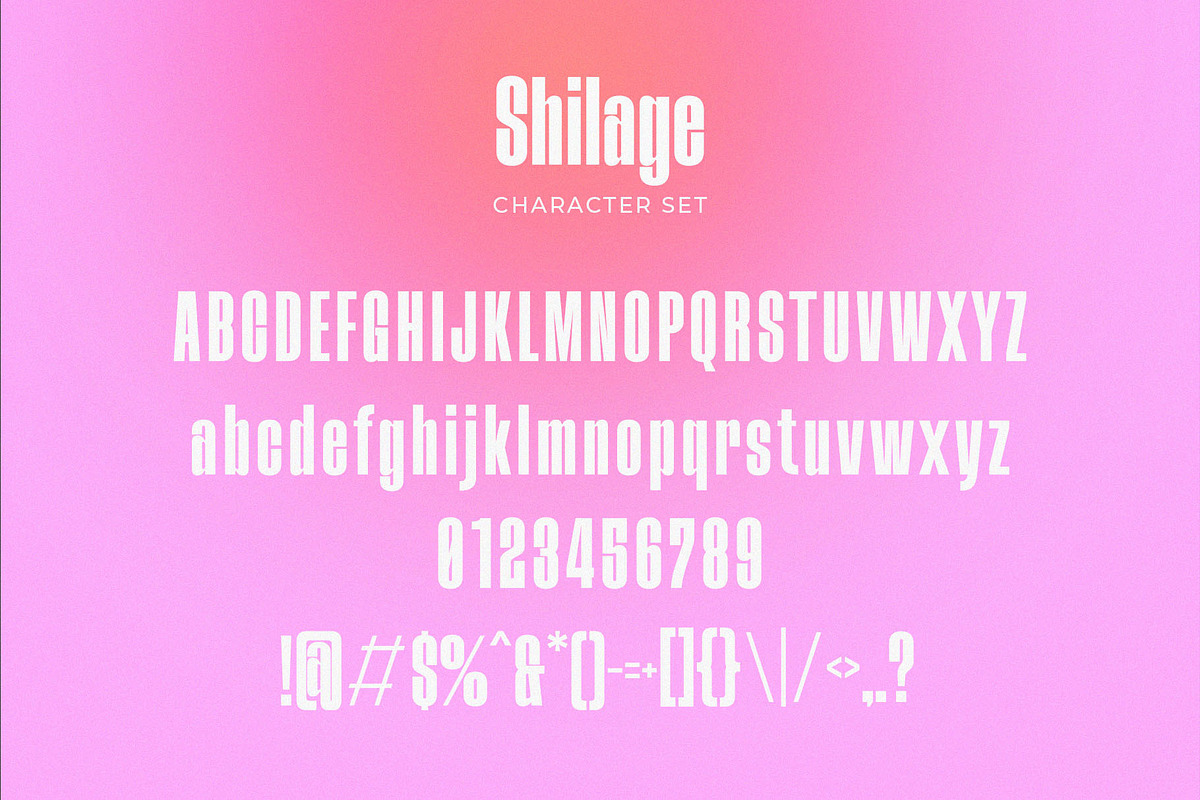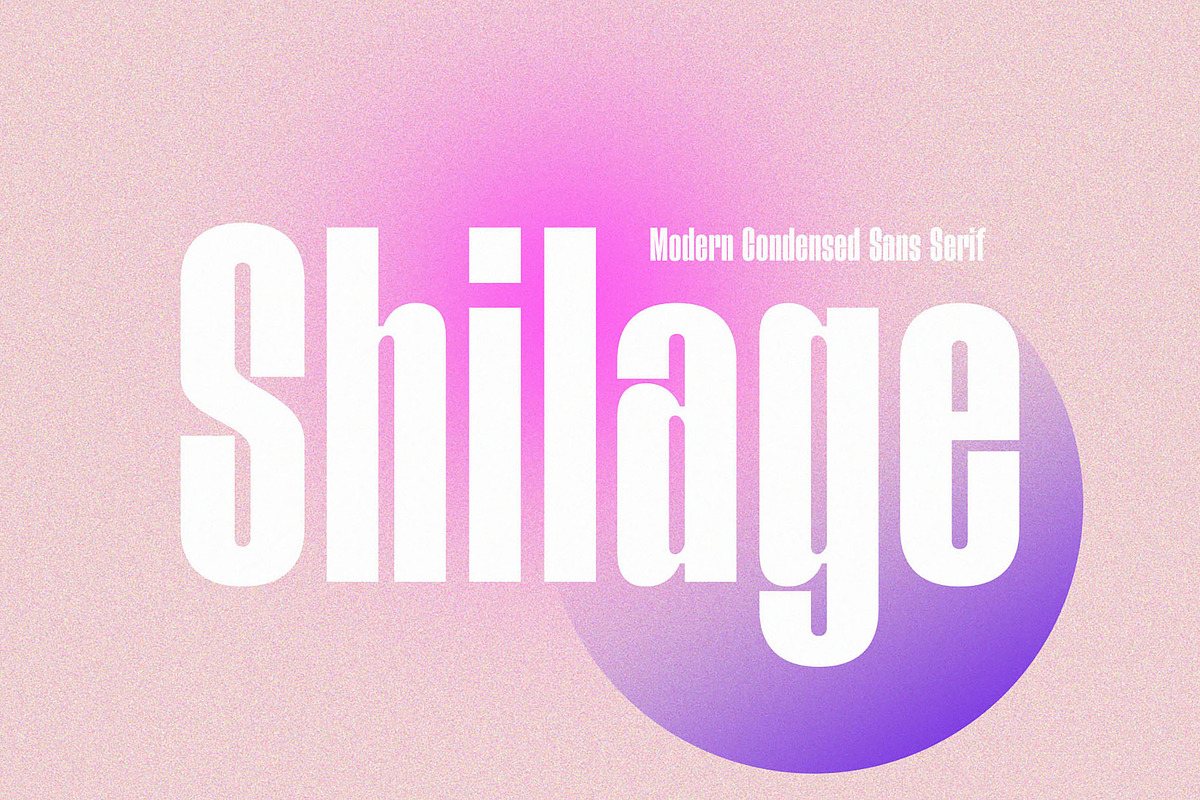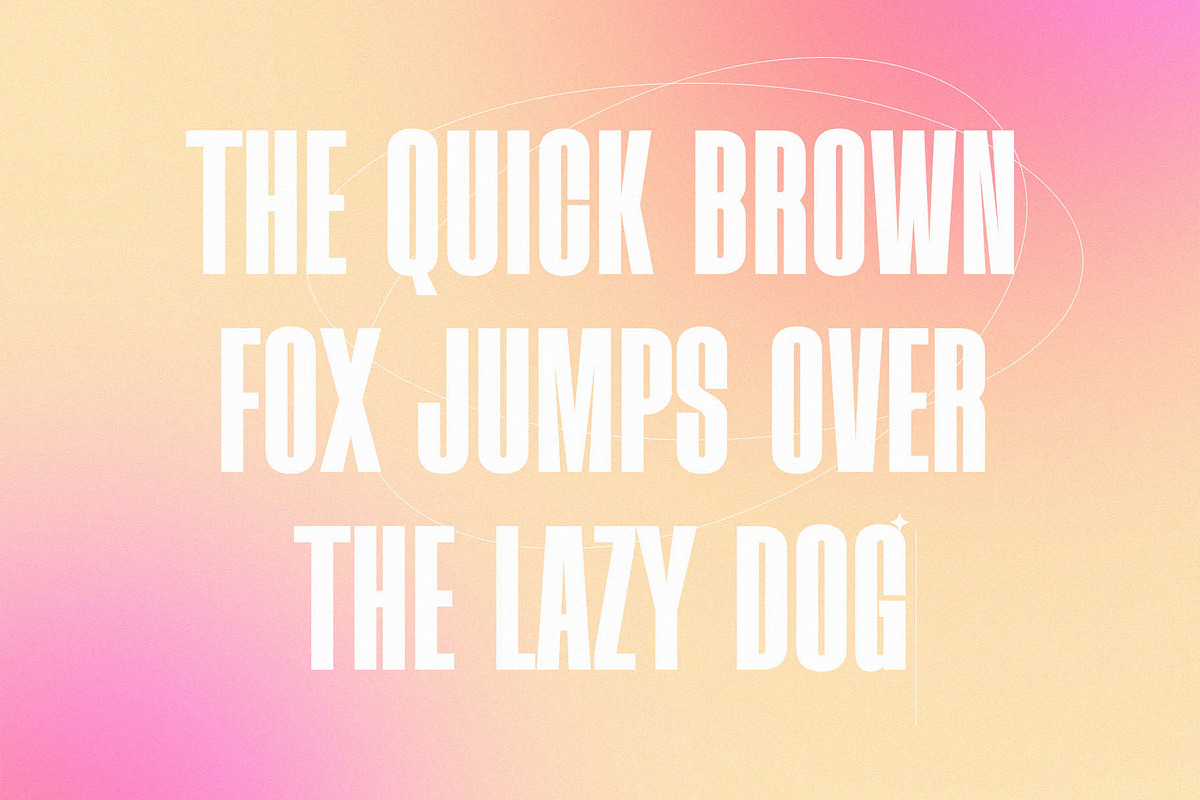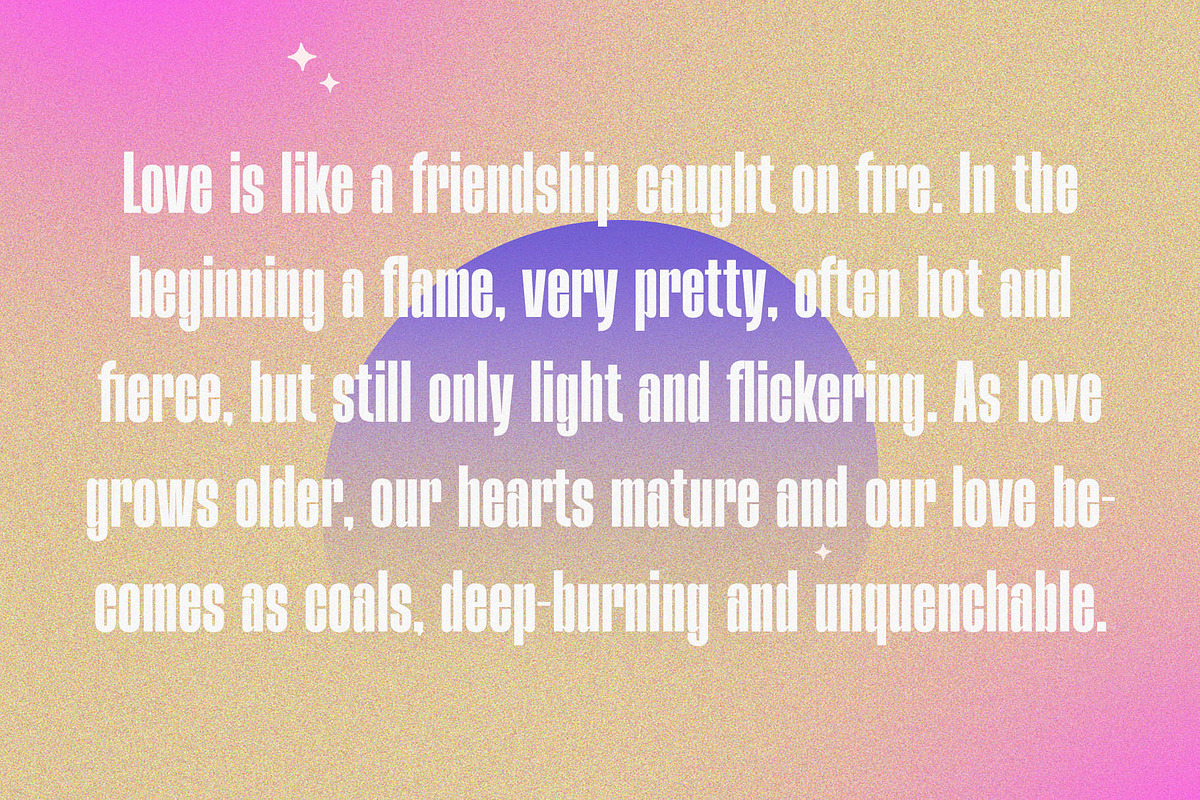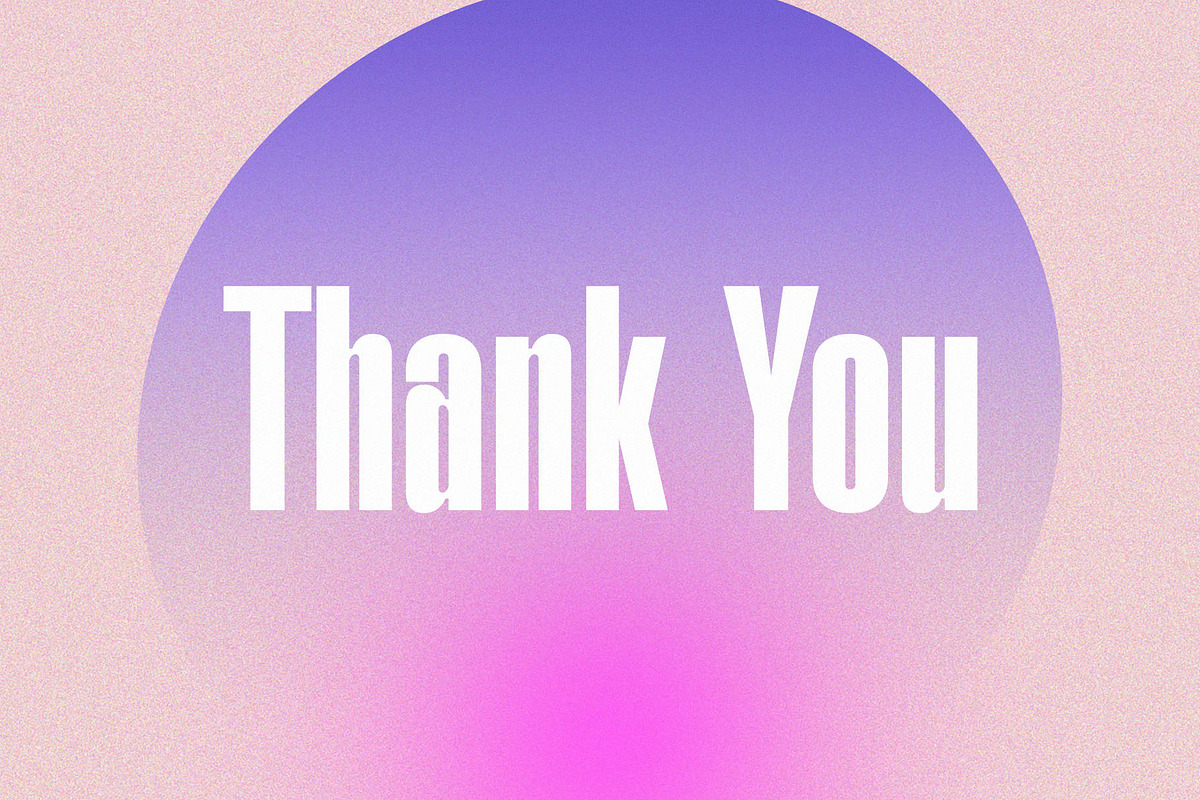
Shilage - Modern Condensed Sans Seri
Shilage - Modern Condensed Sans Serif
Introducing our new Shilage, modern sans serif font with elegant style this is perfect for branding, logos, invitation, magazines, product packaging and more.